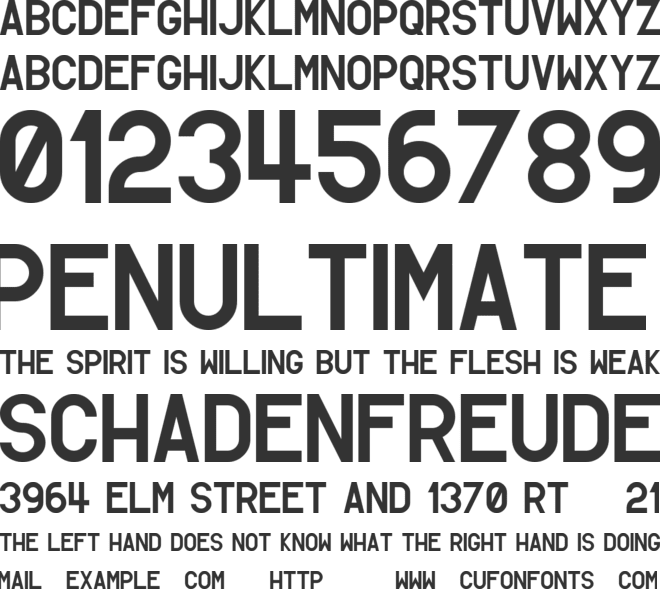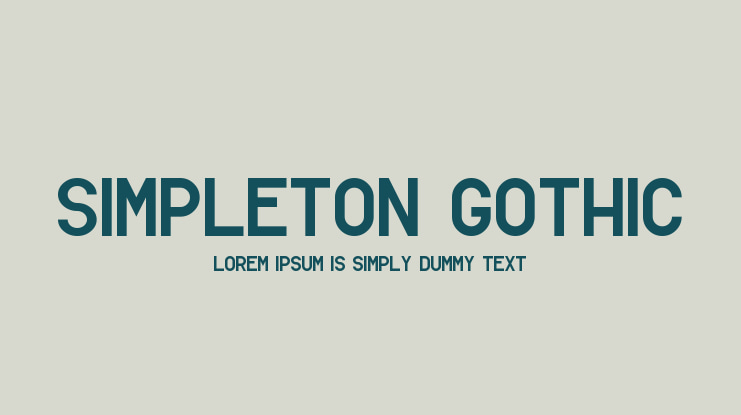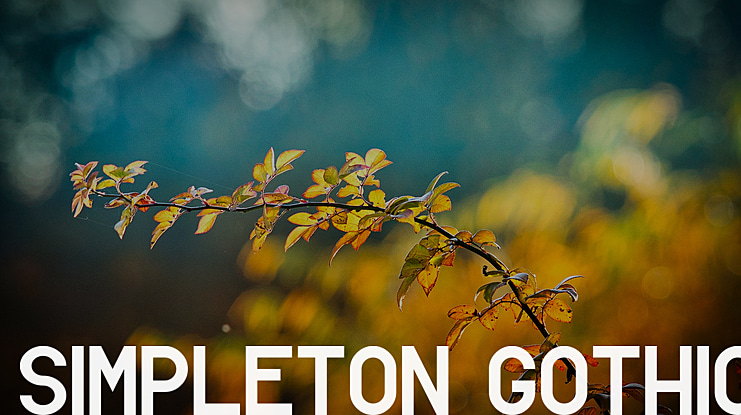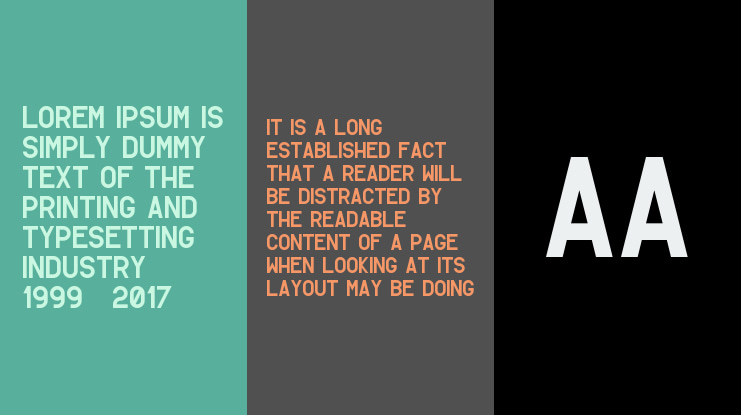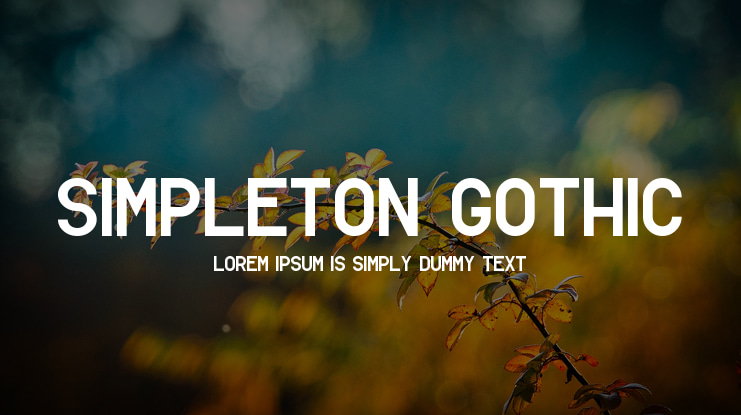
Simpleton Gothic Font
Simpleton Gothic is a garish neo-grotesque gothic sans serif. The typeface is proportioned to be the exact opposite of elegance.